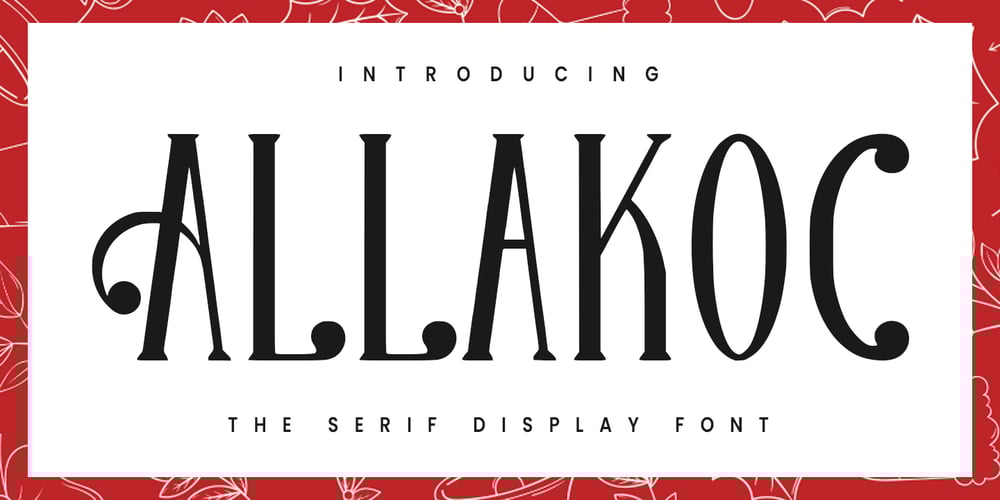
MC Allakoc
MC Allakoc font
MC Allakoc Font Family was designed by Gilang Maulana and published by Maulana Creative. MC Allakoc contains 1 styles and family package options. Allakoc is a fancy serif modern font. With bold tall and sharp stroke, fun character with a bit of alternates. To give you an extra creative work. Allakoc font support multilingual more than 100+ language. This font is good for logo design, Social media, Movie Titles, Books Titles, a short text even a long text letter and good for your secondary text font with sans or serif. Make a stunning work with Allakoc font.